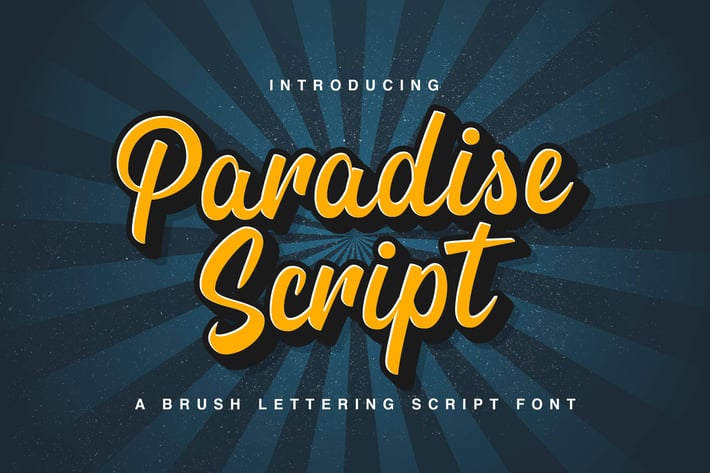
Paradise Script - Modern Script Font
Introducing Paradise Script - Modern Script Font
Paradise Script is a flowing handwritten font, described by an elegant touch, perfect for your favorite projects. Fall in love with its incredibly distinct and timeless style and use it to create spectacular designs!